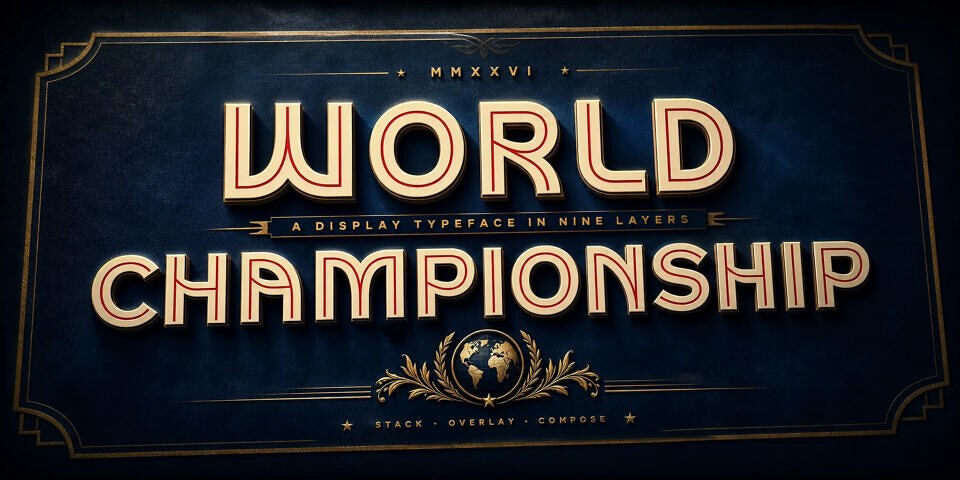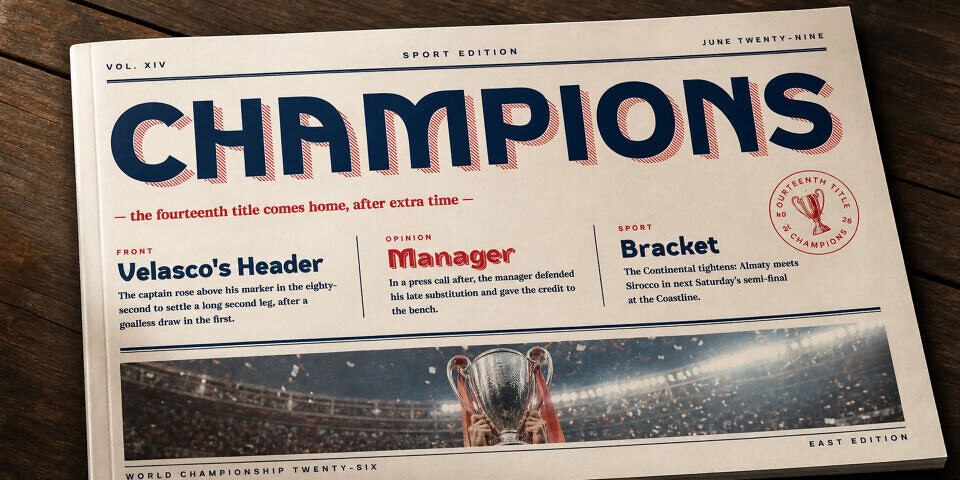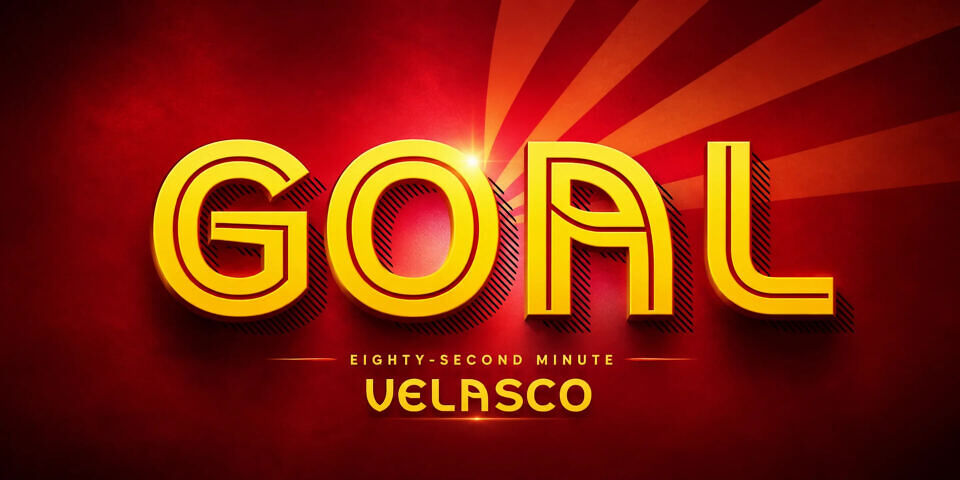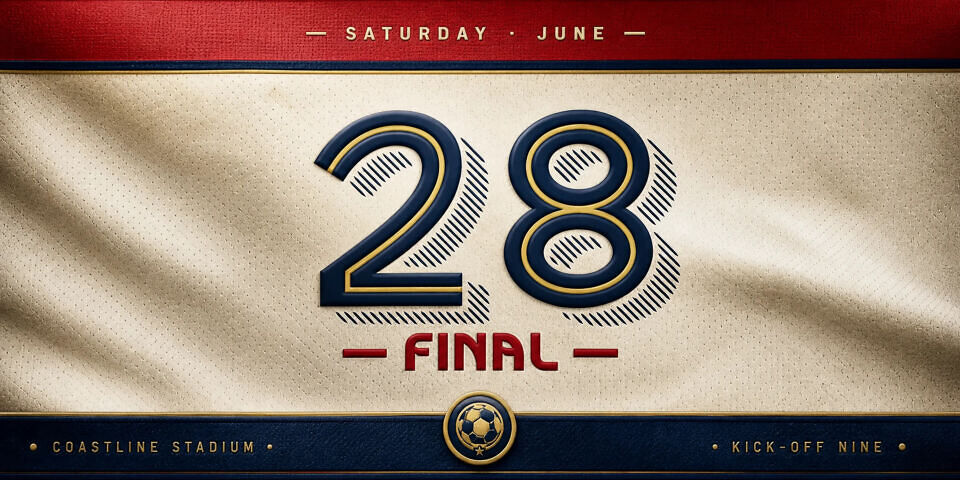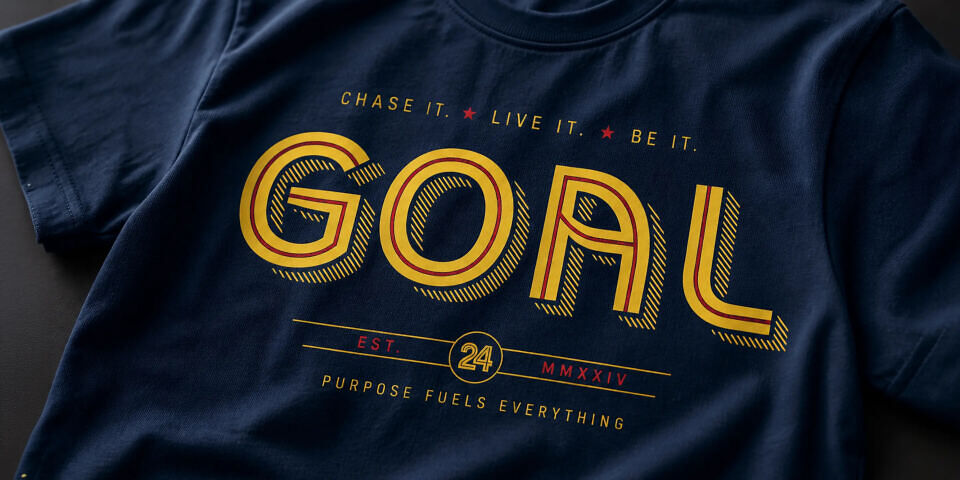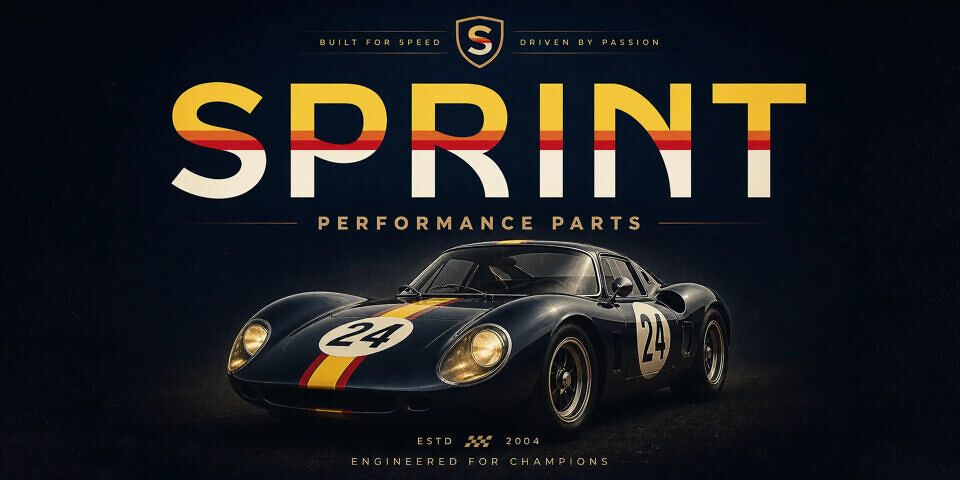
World Championship Font Family
World Championship is a layered geometric display sans built for stadium-scale lettering. Each letter sits on a strict geometric skeleton — perfect circles, straight stems, even sidebearings — and the family ships in nine companion styles that stack at exactly the same coordinates: a Regular fill, a Bold and a Thin weight, an Inline that opens a hairline through the body, a Shadow and a WithShadow for depth, and three Fade variants that band the letterform in offset color stripes.
Layer them and you get the inset-and-shadow chrome of an arena scoreboard or the chromatic banding of a televised fixture title; use any one alone and you get a clean, official-looking display sans. It is the kind of lettering you can picture lit across a press-box wall the night of a final, or stamped along the side of a coach pulling into a depot at four in the morning.